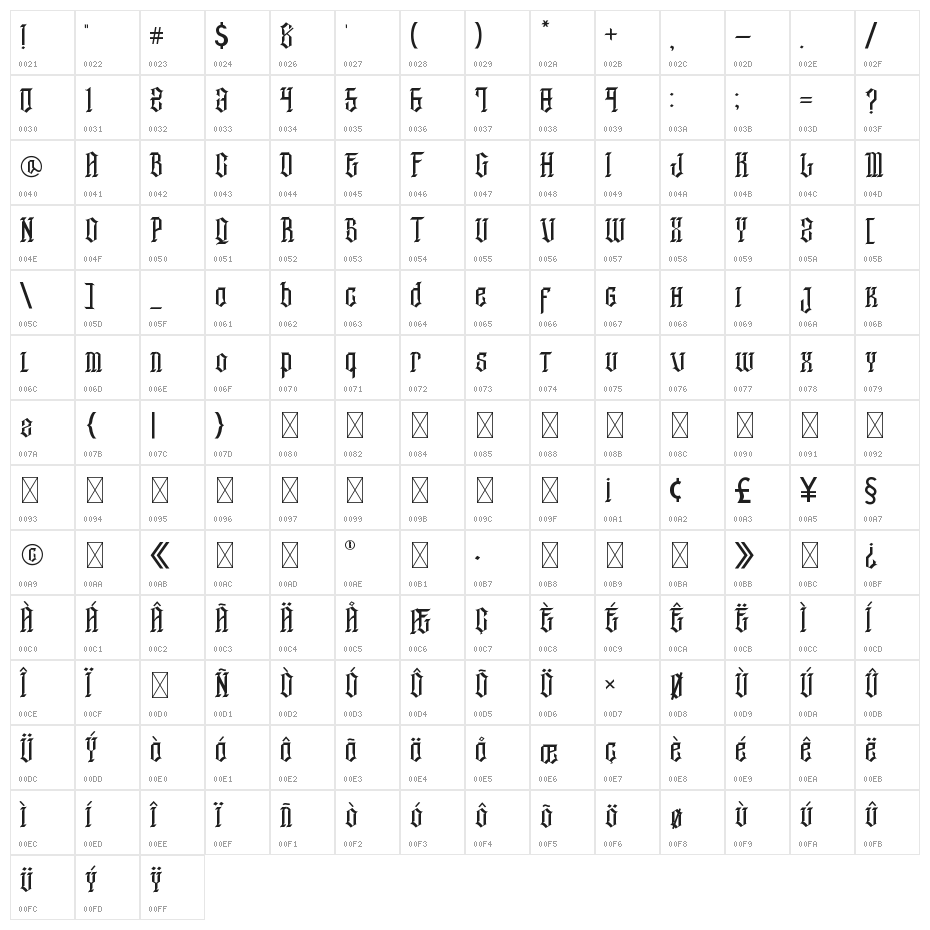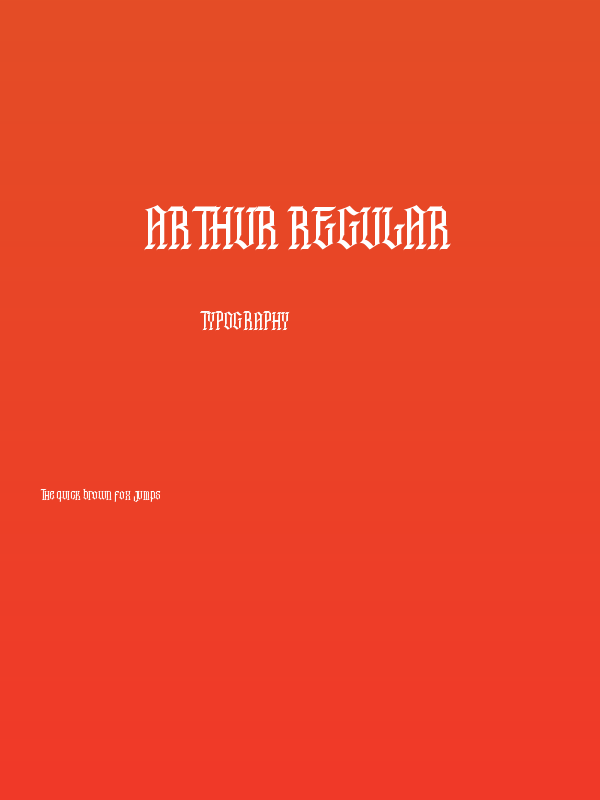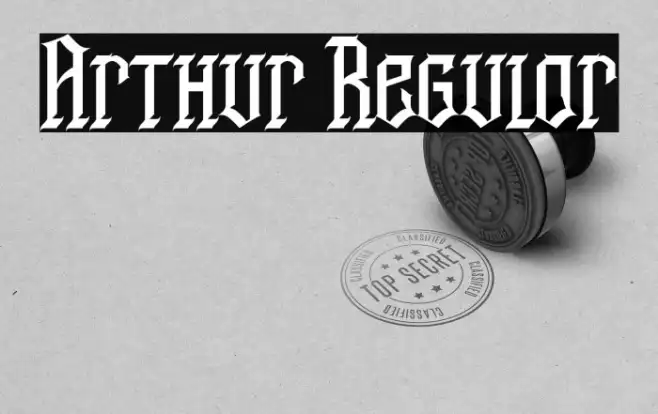
Arthur Regular Font
Arthur Regular Description
This font exhibits a bold and striking blackletter style, characterized by its sharp, angular lines and intricate detailing. The uppercase letters are particularly ornate, with a gothic flair that is both dramatic and eye-catching. The lowercase letters maintain the same level of detail, ensuring consistency throughout the typeface. The numerals are equally stylized, matching the overall aesthetic with their bold, angular forms. Special characters are designed to complement the letters, adding to the cohesive look of the font. This typeface is perfect for projects that require a historical or medieval touch, such as themed event posters, book covers, or branding for products that want to convey a sense of tradition and strength.
| Proposed Projects | Ideal for themed event posters, book covers, or branding that conveys tradition and strength. |